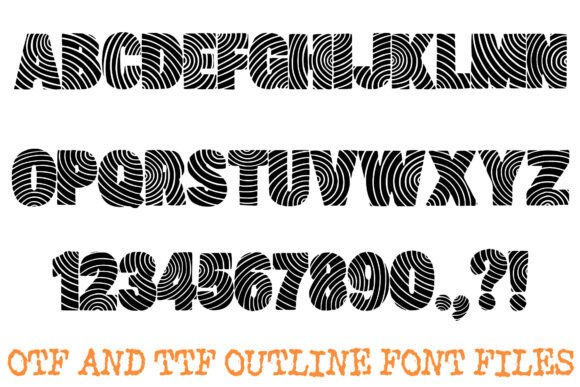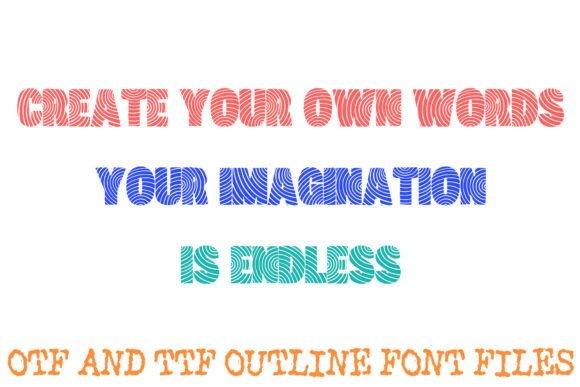
Make a Lasting Impression with the Captivating Fingerprint Swirl Font
In the world of typography, a font can make or break a design. If you’re looking for a font that exudes mystery, individuality, and a touch of the organic, look no further than the Fingerprint Swirl Font. This hand-drawn display alphabet is a game-changer for designers and crafters seeking to add a unique touch to their projects.
The Inspiration Behind the Font
The Fingerprint Swirl Font draws inspiration from the unique ridges of a human fingerprint. Each character features bold, solid silhouettes filled with a dense pattern of concentric circular lines, creating a mesmerizing visual effect. This intricate “maze” of swirls within each letter gives your typography a textured, tactile feel that draws the eye and refuses to let go.
Perfect for Mystery-Themed Branding and More
The Fingerprint Swirl Font is an exceptional choice for a variety of design projects, including:
- Mystery-themed branding: Add a touch of intrigue to your logo or packaging with this captivating font.
- Identity-focused logos: The unique, swirling patterns within each letter make for a memorable and distinctive logo.
- Forensic-style graphics: The font’s design, inspired by fingerprints, makes it a natural fit for forensic or investigative graphics.
- Organic, nature-inspired posters: The font’s organic, earthy feel makes it perfect for posters and flyers promoting outdoor events or eco-friendly products.
What Sets the Fingerprint Swirl Font Apart
So, what makes the Fingerprint Swirl Font so special? Here are just a few reasons why designers and crafters are raving about this unique font:
- Unique Concentric Texture: Every character is packed with repeating circular lines for a high-contrast, “hypnotic” effect.
- Bold Blocky Letterforms: The font’s bold, solid silhouettes give your typography a sturdy, attention-grabbing feel.
- Hypnotic Visual Depth: The intricate swirls within each letter create a sense of visual depth, drawing the eye and captivating the viewer.
The Fingerprint Swirl Font offers a world of creative possibilities. Here are just a few ideas to get you started:
- Book Covers: Add a touch of mystery to your psychological thriller or mystery novel with this captivating font.
- Social Media Headers: Create unique and eye-catching social media headers that showcase your brand’s personality.
- Branding and Identity: Develop a brand centered on individuality and uniqueness with this one-of-a-kind font.
Why Choose the Fingerprint Swirl Font?
In a world where design trends come and go, the Fingerprint Swirl Font offers a timeless, modern aesthetic that’s both organic and captivating. Here are just a few reasons why you should consider adding this font to your collection:
- Memorable Designs: The Fingerprint Swirl Font is guaranteed to make your designs stand out and leave a lasting impression.
- Versatility: This font can be used for a wide range of design projects, from branding and advertising to packaging and more.
- Unique Aesthetic: The font’s swirling patterns and concentric texture create a truly one-of-a-kind aesthetic that’s both modern and organic.
In conclusion, the Fingerprint Swirl Font is a game-changer for designers and crafters seeking to add a touch of mystery, individuality, and intrigue to their projects. With its unique concentric texture, bold blocky letterforms, and hypnotic visual depth, this font is sure to make a lasting impression. So why wait? Try the Fingerprint Swirl Font today and discover a world of creative possibilities!